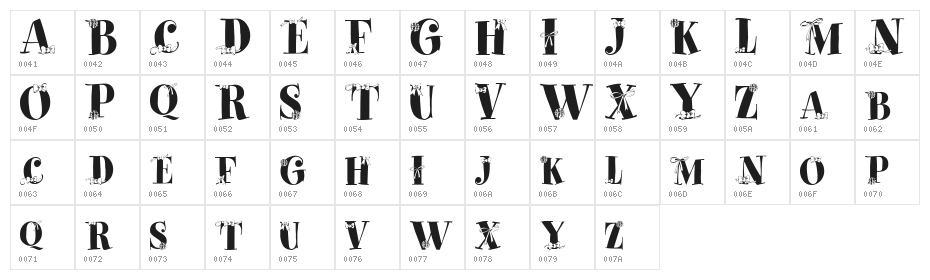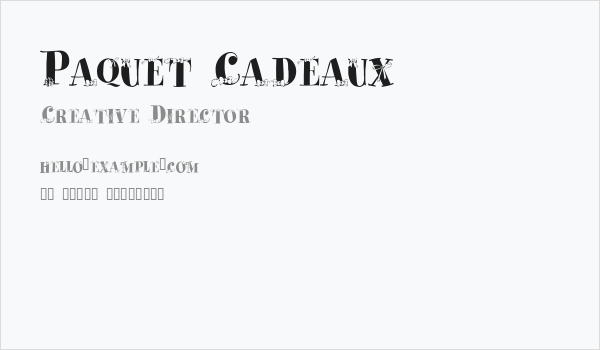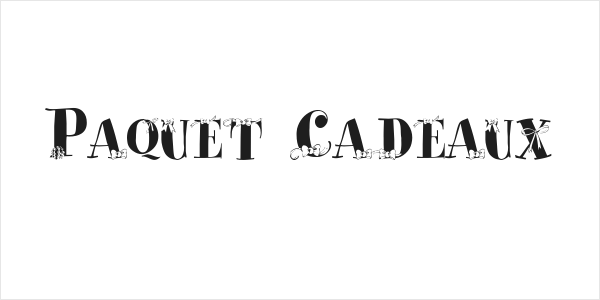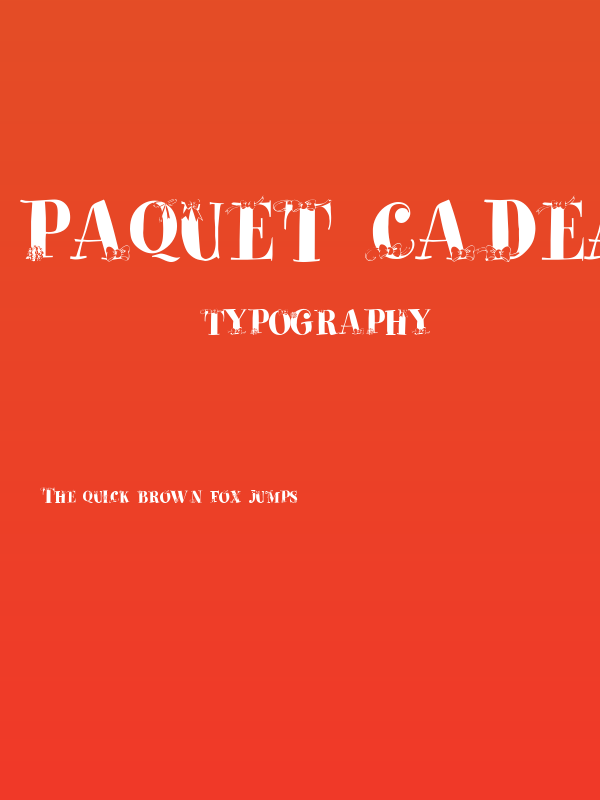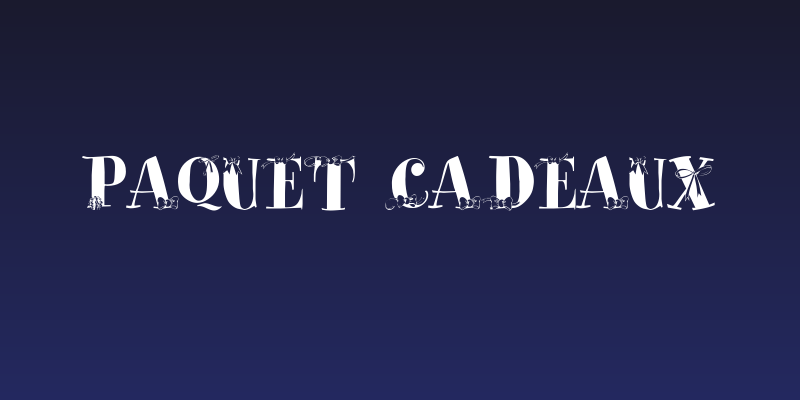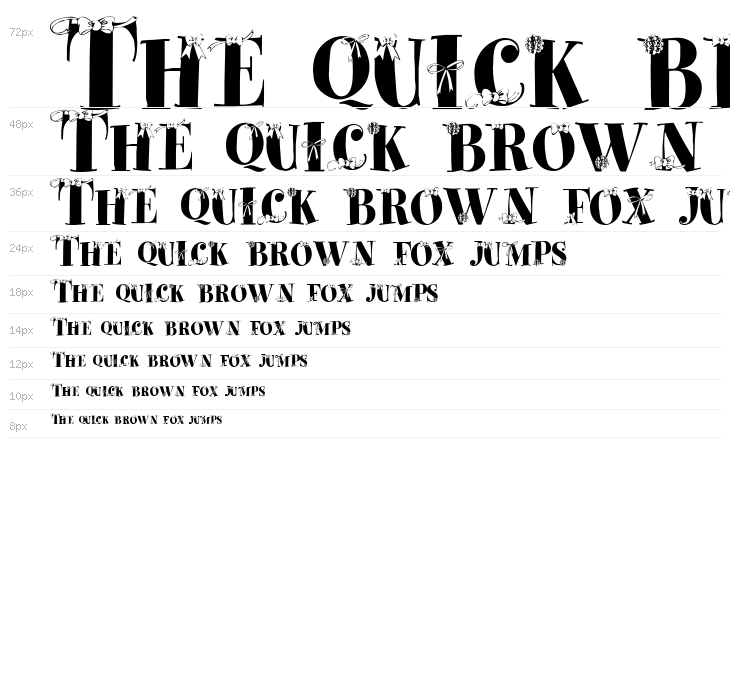
Paquet Cadeaux Font
Paquet Cadeaux Description
This decorative font features a playful and whimsical design, incorporating elements like bows and floral motifs into the characters. Each letter is adorned with intricate details that give it a festive and celebratory feel, making it ideal for special occasions. The uppercase letters are bold and prominent, with embellishments that add a touch of elegance and charm. The font's unique style is eye-catching and perfect for creating a joyful and inviting atmosphere in any design project.
| Proposed Projects | Ideal for holiday cards, invitations, gift tags, and festive event posters. |